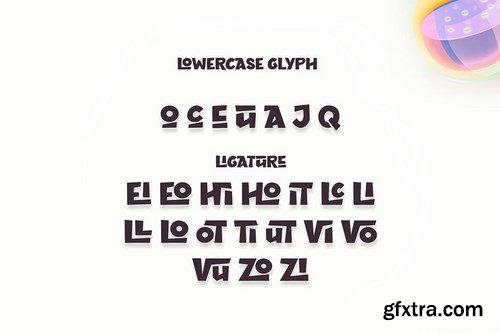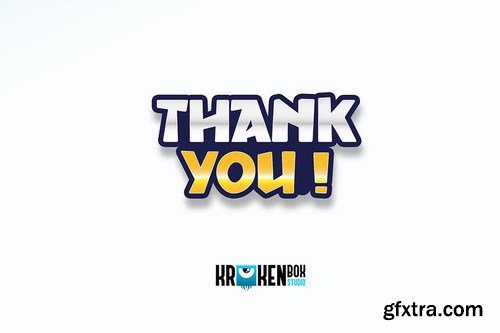
Grozel is Gaming display font. It has fancy, playful, and Cool. It’s a great font for gaming, product, fashion, apparel projects, signature, album cover, logo, branding, magazine, social media, & advertisements, but also works great for other projects.